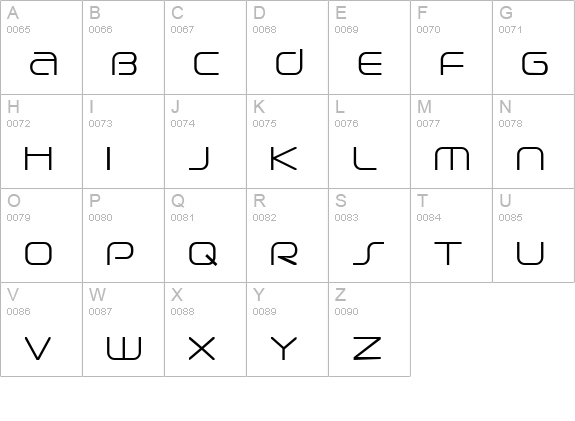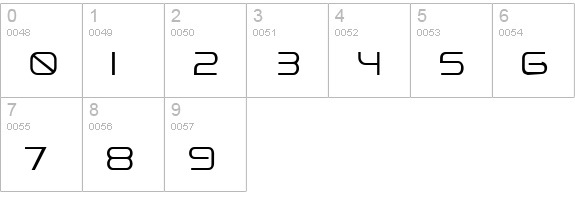
Birdman Light Font Details
Birdman Light is a refined, elegant variant in the Birdman typeface family \xE2\x80\x94 well suited to elegant body text, refined sub-headings, and luxury branding.
Birdman Light font is a sleek and modern typeface that exudes elegance and sophistication. Its clean lines and subtle curves make it perfect for a wide range of design projects, from logos to branding to marketing materials. The delicate balance of simplicity and style in Birdman Light font is sure to make your text stand out and leave a lasting impression. And the best part? Birdman Light font is completely free to download at FontsMarket.com. You can elevate your designs with this stunning font without breaking the bank. So why wait? Download Birdman Light font now and take your projects to the next level with this versatile and eye-catching typeface.